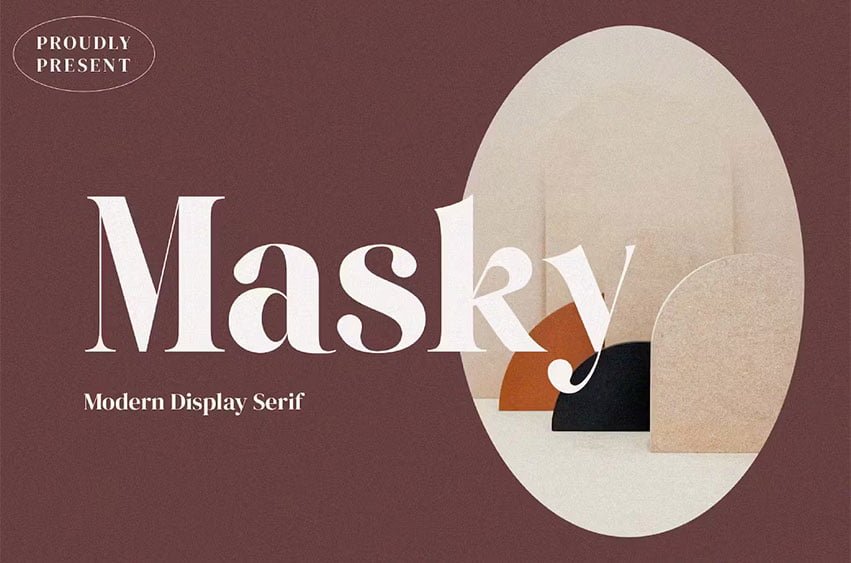
Masky Font inspired by the famous minimalist logo perfect for the purposes of designing templates, brochures, videos, advertising branding, logos, invitation, layout design, elegant crafting, beauty design and more.